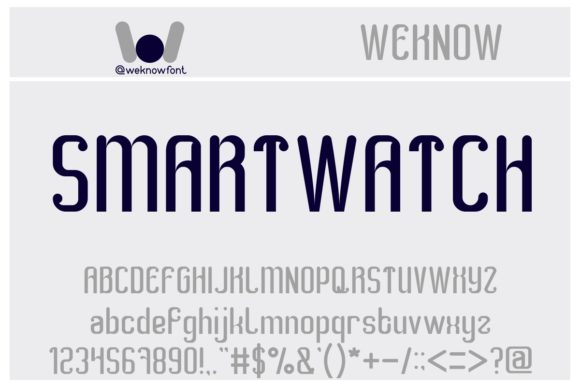
Embrace the digital era with Smart Watch, a font designed to leave an indelible mark on your creative endeavors. Crafted with precision and boldness, this display font exudes a captivating presence, ideal for projects demanding a touch of assertiveness and clarity.
Step into a world of design possibilities with Smart Watch, a font that seamlessly blends modernity and simplicity. Its meticulously crafted letterforms evoke a sense of confidence and sophistication, effortlessly elevating your projects to new heights.
Whether you're creating captivating YouTube videos, crafting eye-catching social media posts, or designing sleek logos and branding materials, Smart Watch stands as your trusted companion, ensuring your messages shine with brilliance.
With Smart Watch, the boundaries of creativity dissolve. Unleash your imagination and embark on a design journey like no other. Experience the transformative power of typography as your projects come alive with a newfound vibrancy and impact.
Don't settle for ordinary; embrace the extraordinary with Smart Watch. Its versatility extends beyond the screen, transforming the ordinary into the remarkable. Let your designs radiate confidence and leave a lasting impression that resonates with your audience.
Join the creative revolution and unlock the full potential of Smart Watch. Discover the endless possibilities that await you as you embark on a design odyssey where innovation and artistry converge. Embrace the bold, the beautiful, and the unforgettable. The era of Smart Watch has arrived. Step into the future of design today.